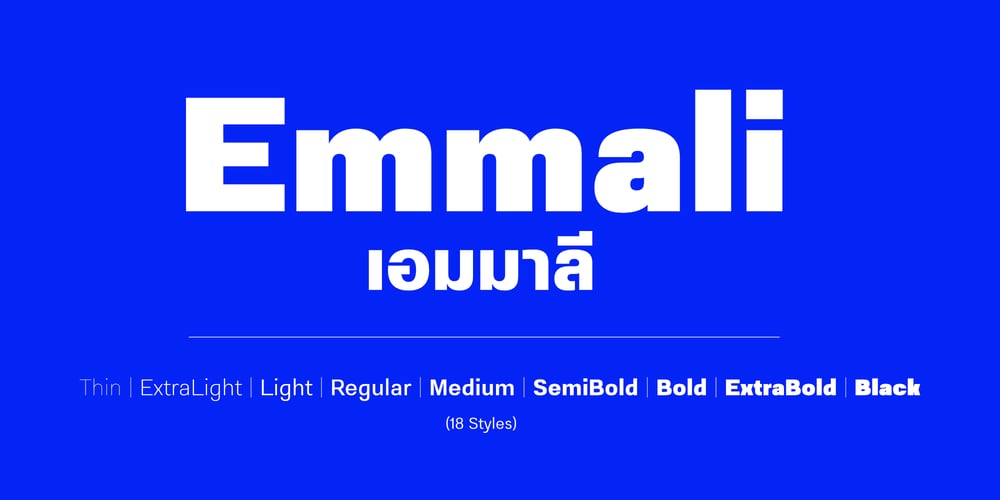
Emmali
Emmali font
Emmali Font Family was designed by Anupap Jaichumnan and published by Jipatype. Emmali contains 18 styles and family package options. Emmali is a sleek and versatile sans-serif typeface. Designed for modern readability and clean aesthetics, Emmali offers a contemporary look that makes it suitable for a wide range of design applications. it an ideal choice for both print and digital media.